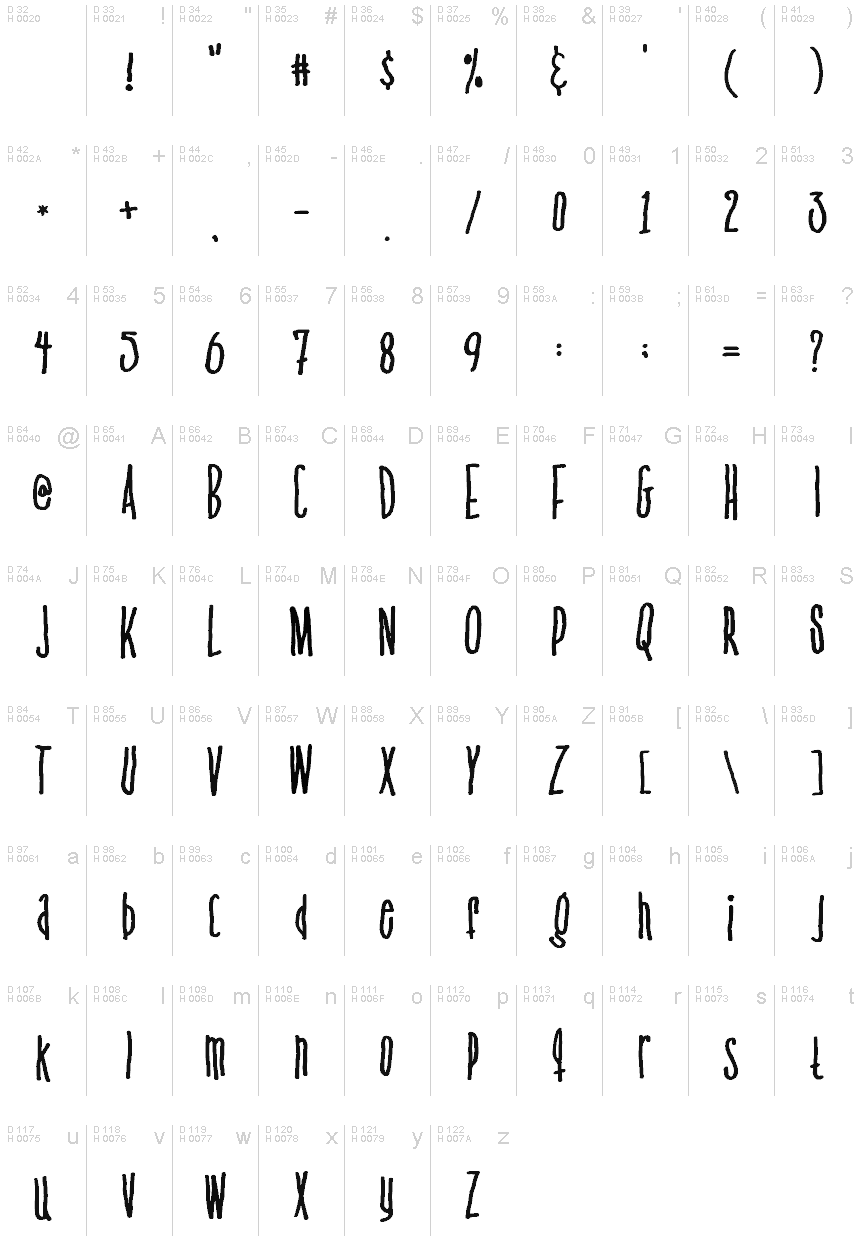
Venus flytrap the bug
Venus flytrap & the bug, designed by Jakob Fischer, is a semi-light and extra-condensed handwritten font that captures the playful yet precise essence of quick pen strokes. Its idiosyncratic style exudes a casual charm, with each letter showcasing slight variations as if crafted by hand in a spontaneous burst of creativity.
The aesthetic appeal of Venus flytrap & the bug lies in its organic irregularities and flowing connections between letters. This typeface strikes an intriguing balance between readability and artistic flair, making it an excellent choice for projects that require a personal touch without sacrificing legibility.
Ideal for invitations, branding, or editorial work where character and individuality are paramount, this font's whimsical nature would also lend itself beautifully to children's literature or unique advertising campaigns. The extra-condensed width ensures that it stands out in any context while maintaining an air of lighthearted sophistication.
The aesthetic appeal of Venus flytrap & the bug lies in its organic irregularities and flowing connections between letters. This typeface strikes an intriguing balance between readability and artistic flair, making it an excellent choice for projects that require a personal touch without sacrificing legibility.
Ideal for invitations, branding, or editorial work where character and individuality are paramount, this font's whimsical nature would also lend itself beautifully to children's literature or unique advertising campaigns. The extra-condensed width ensures that it stands out in any context while maintaining an air of lighthearted sophistication.